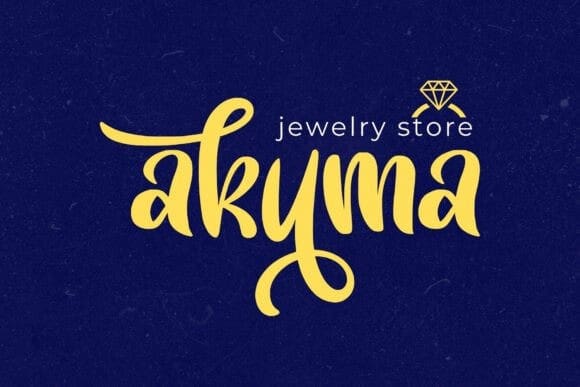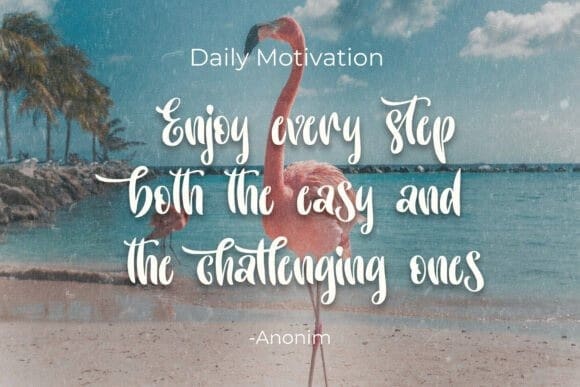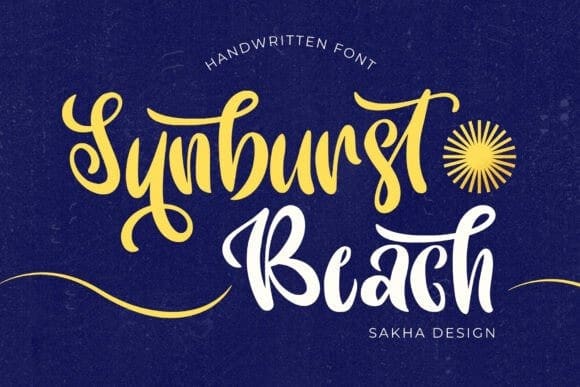
Sunburst Beach Font
Sunburst Beach Font, a handwritten font exuding charm and sophistication. The organic strokes and delicate curves naturally blend in a myriad of personalized projects, including heartfelt greeting cards, exclusive wedding invitations, and distinctive branding. With Sunburst Beach, authenticity meets style, adding a touch of originality and ensuring your work leaves a lasting impression. This font is spectacularly unique and instantly adds depth and character to any design project.